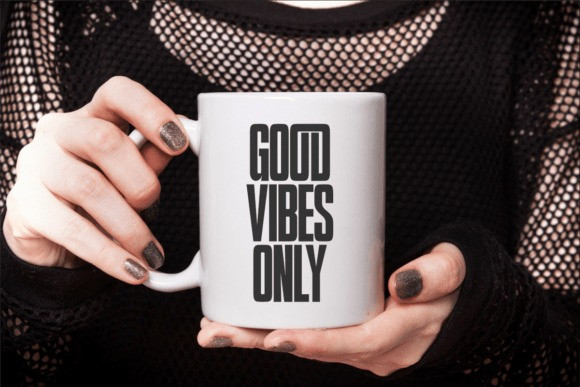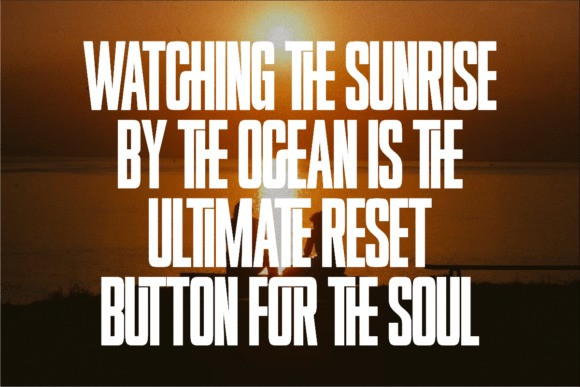
Become Sans Font
Become Sans Font is an ultra-condensed sans serif font designed to deliver maximum impact with minimal space. Featuring 46 unique ligatures, it brings a modern and bold aesthetic perfect for t-shirt design, branding projects, editorial layouts, and creative crafts. With its strong and sleek letterforms, Become is the ideal choice for designers who want to create eye-catching headlines and professional visuals that stand out in both print and digital media.